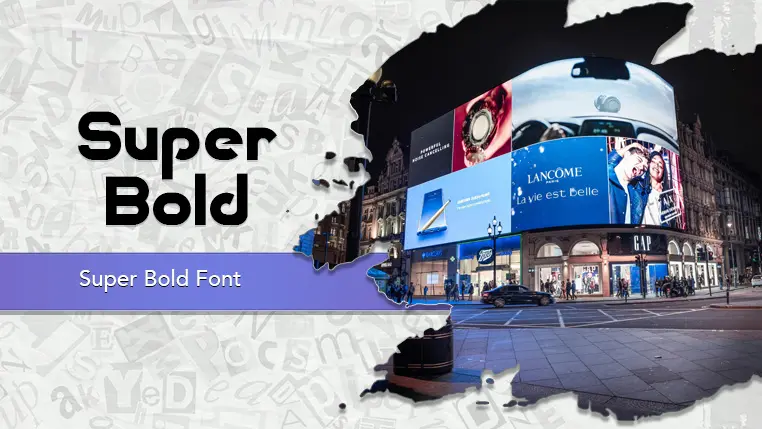
The Super Bold font family may be ideal for you if you enjoy working on an artistic design project. The lively, expressive look of this typeface, which was created by Indra Gunawan, makes it ideal for Headlines and Titles(Magazine and newspaper headlines, Website and blog titles, Posters, banners, and billboards), Display Graphics(Any digital or print design where text needs to be a focal point Like social Media, Presentations and App interfaces) and other light-hearted visual projects.
Regular are the one primary font styles of the Super Bold font family. You may build dynamic, visually appealing text layouts with the distinct flair that each style offers. With crisp, readable lines and a relaxed tone.